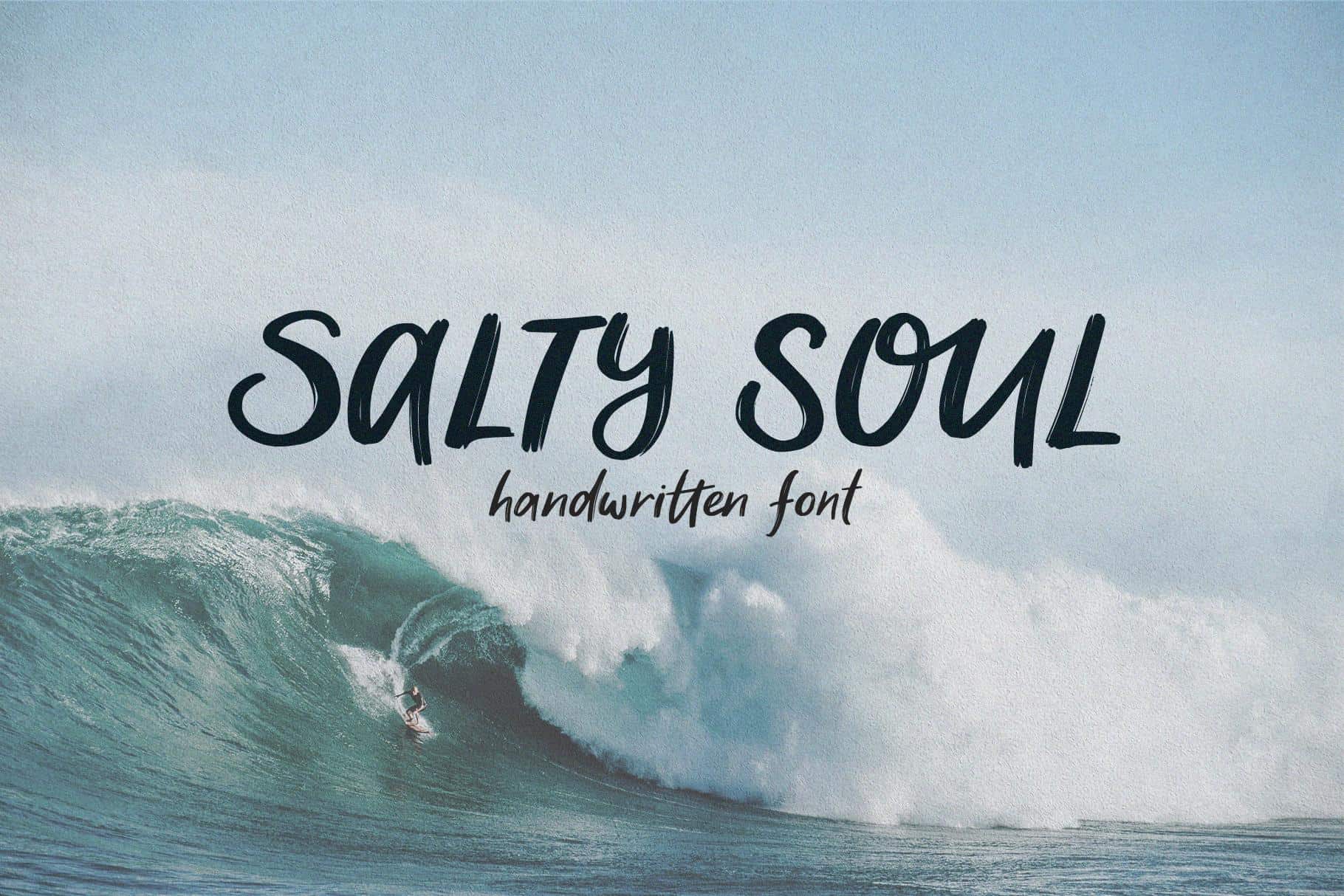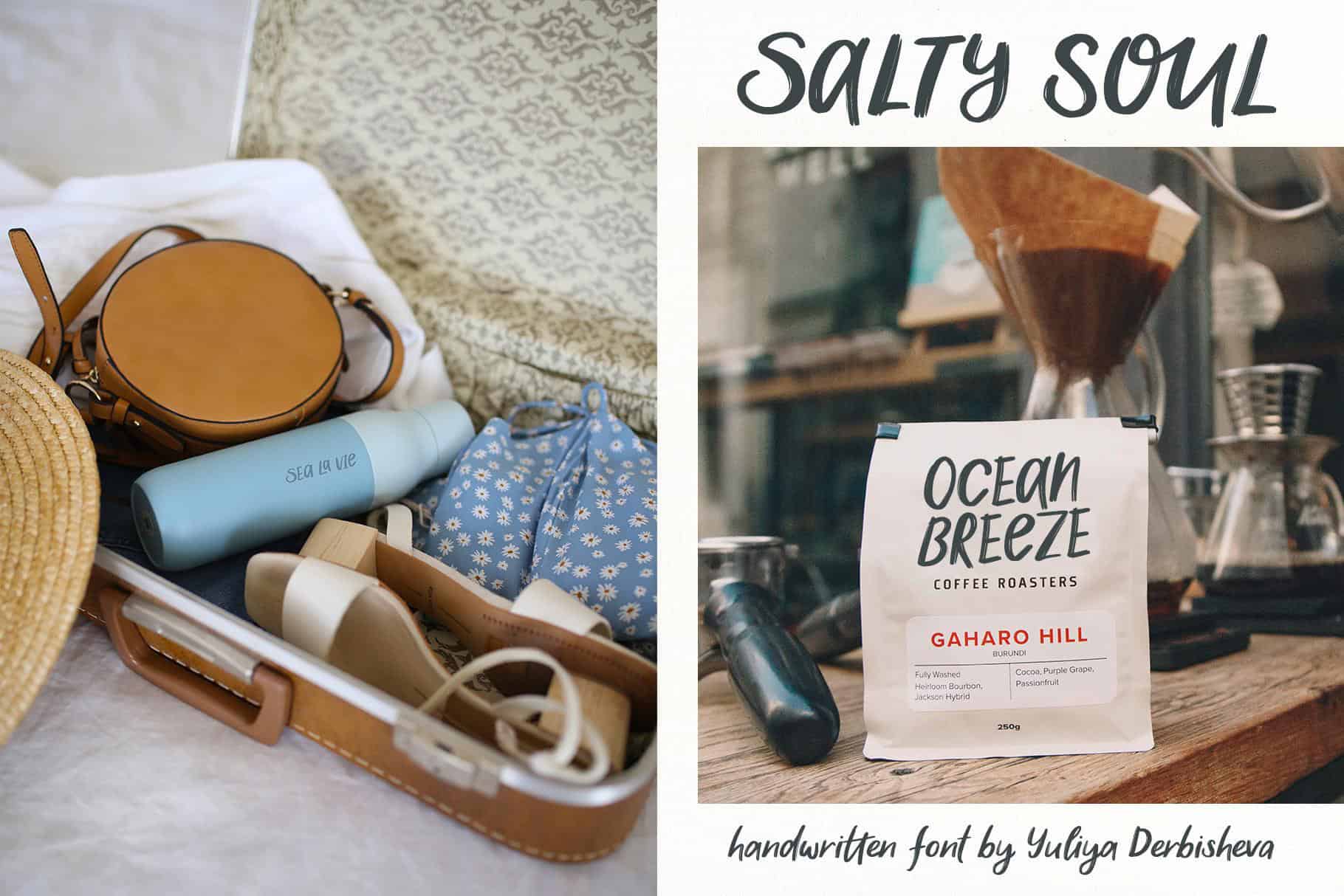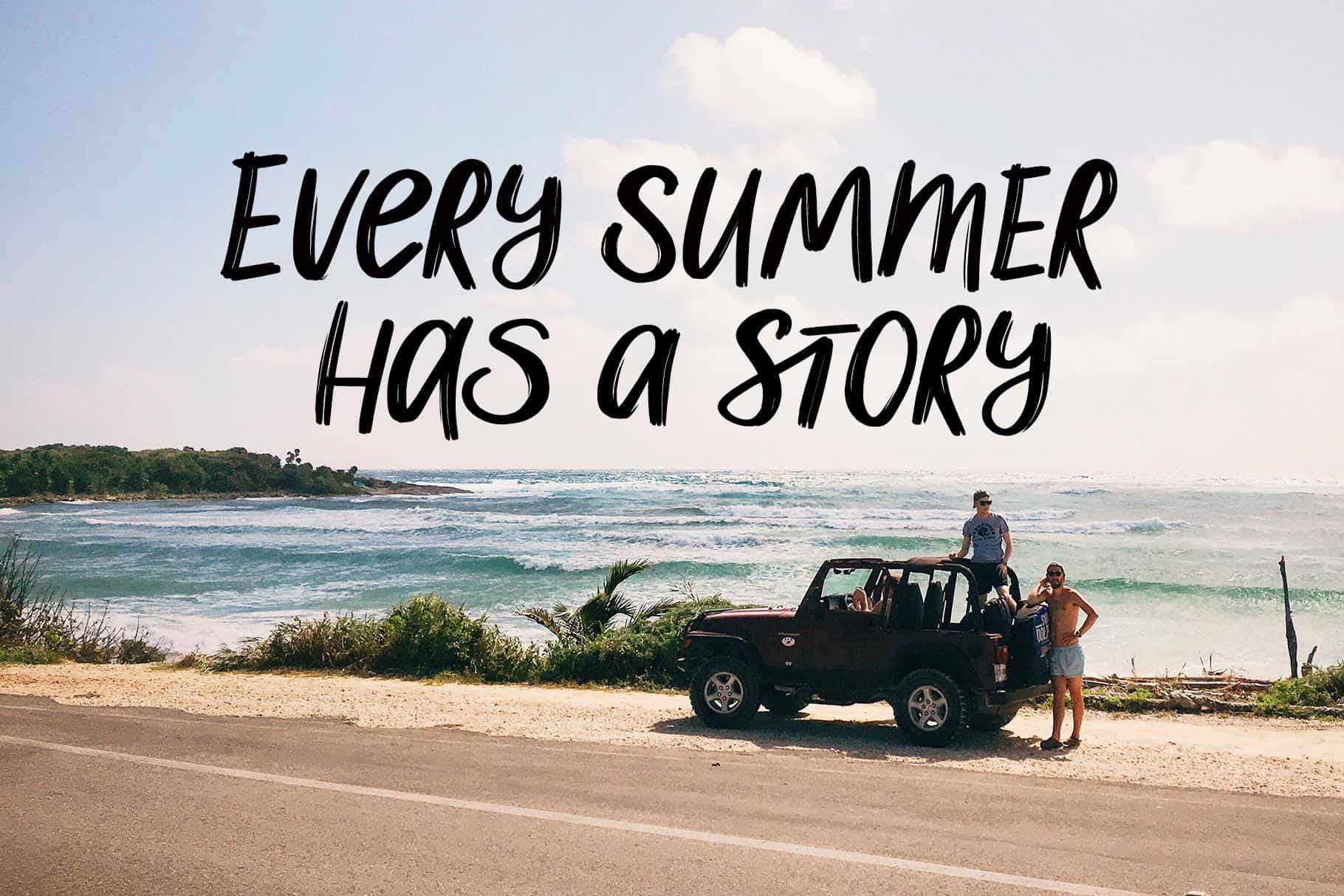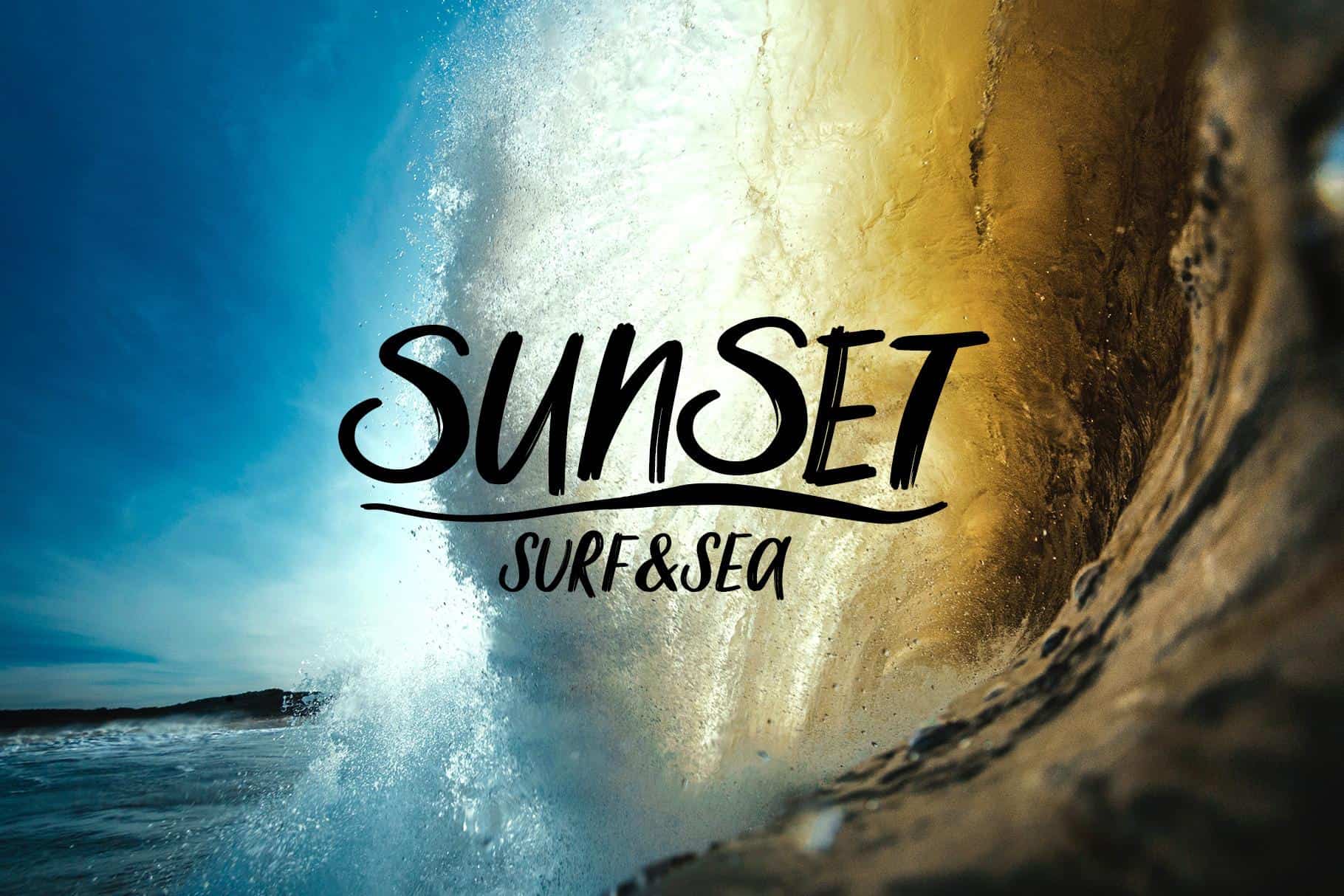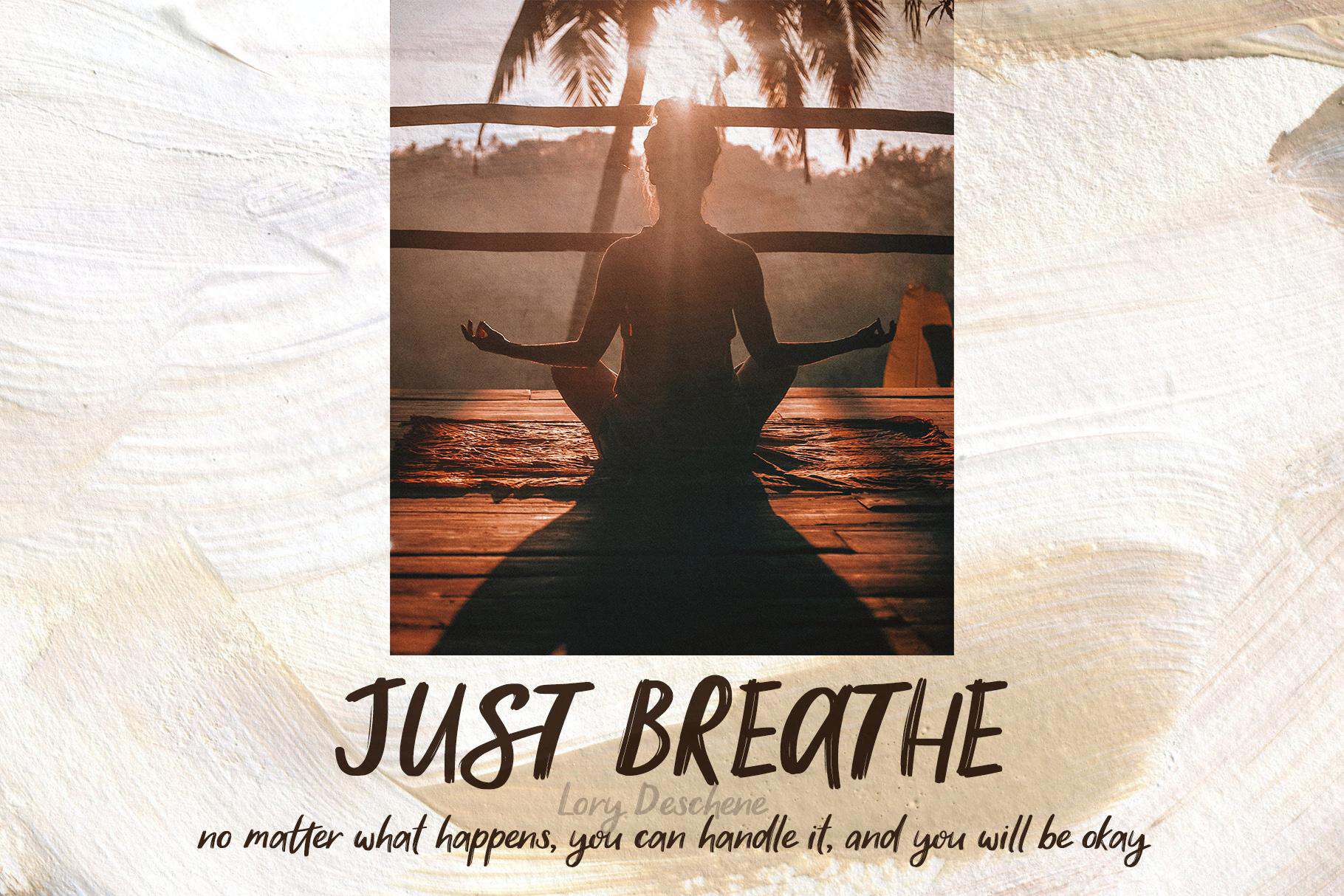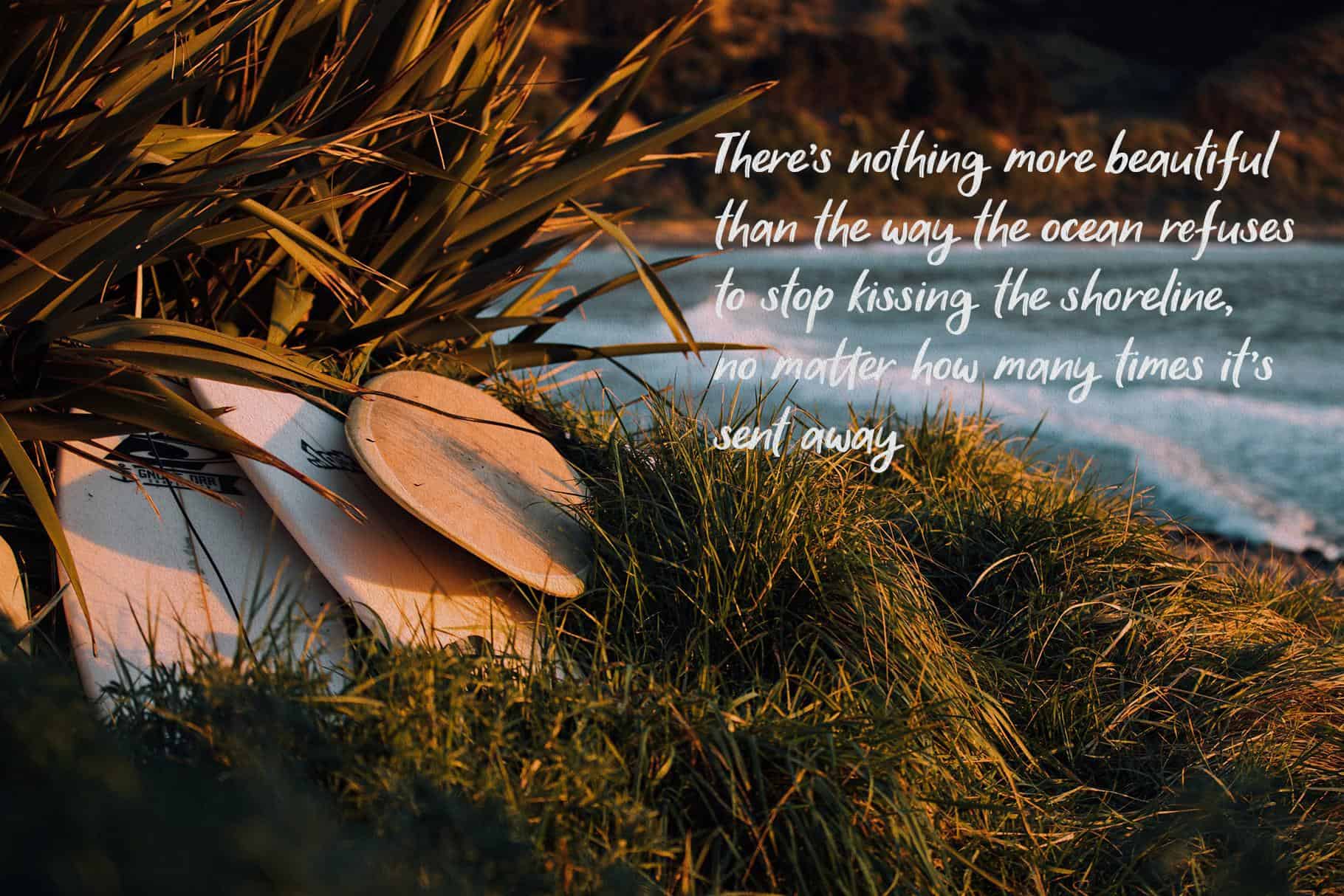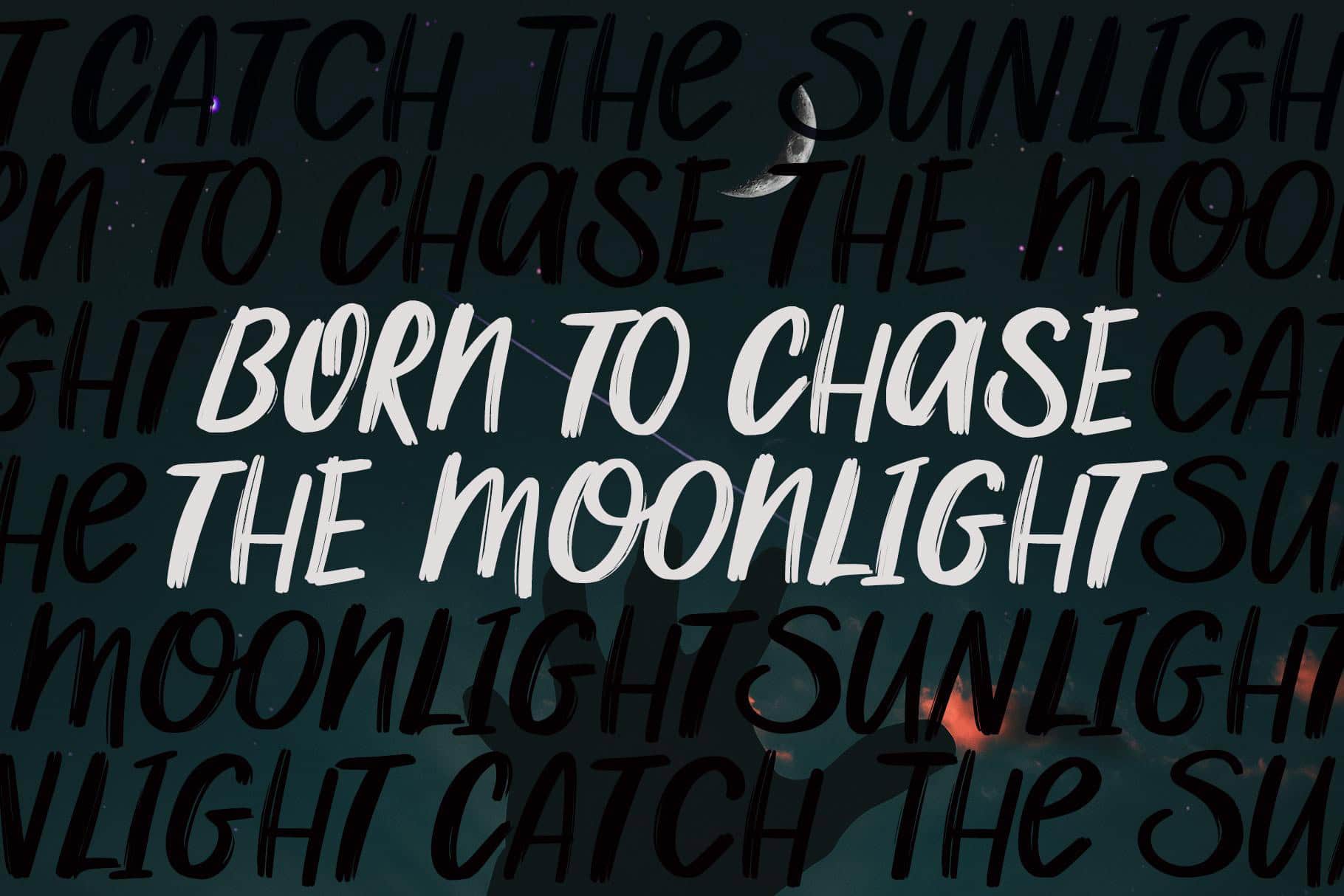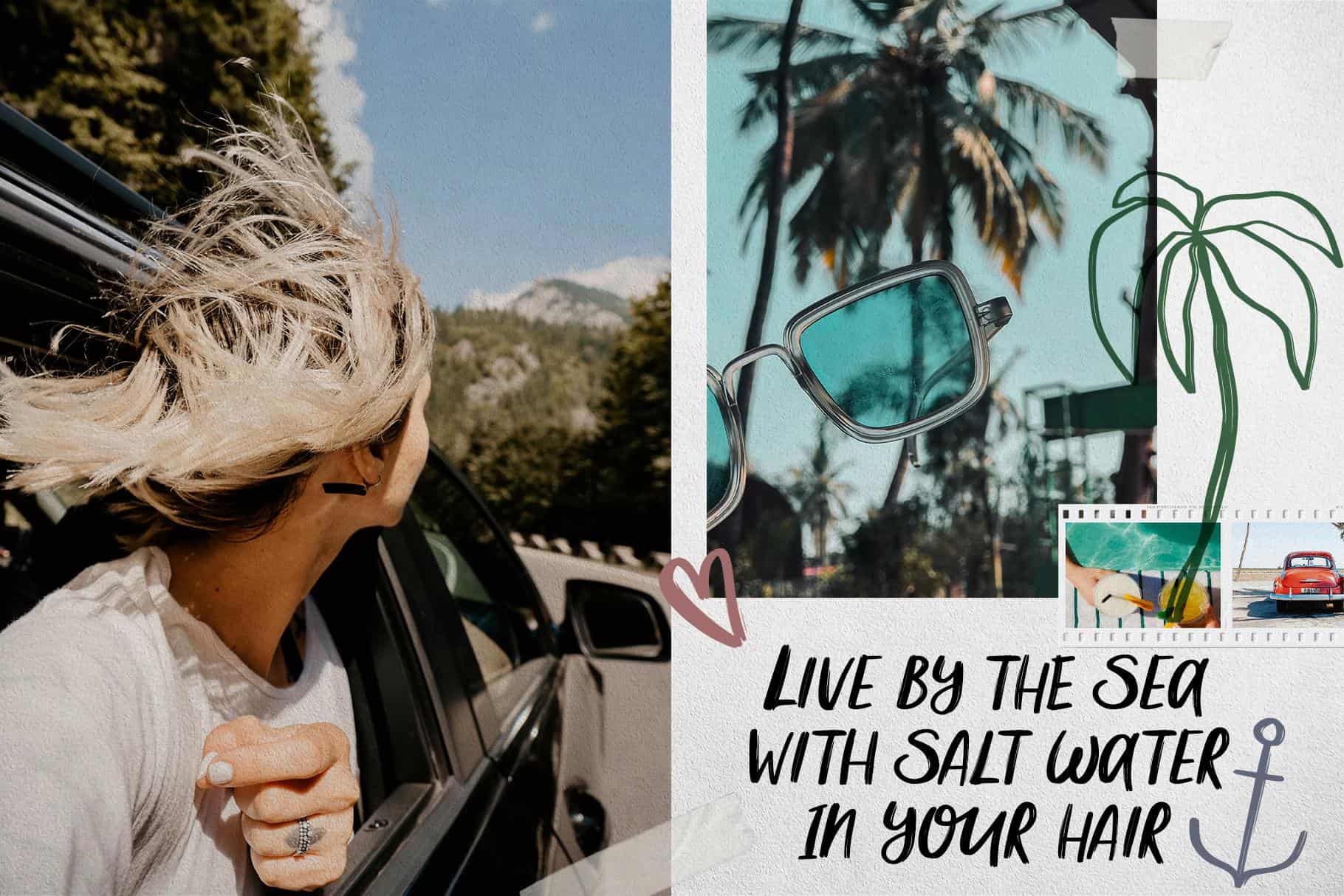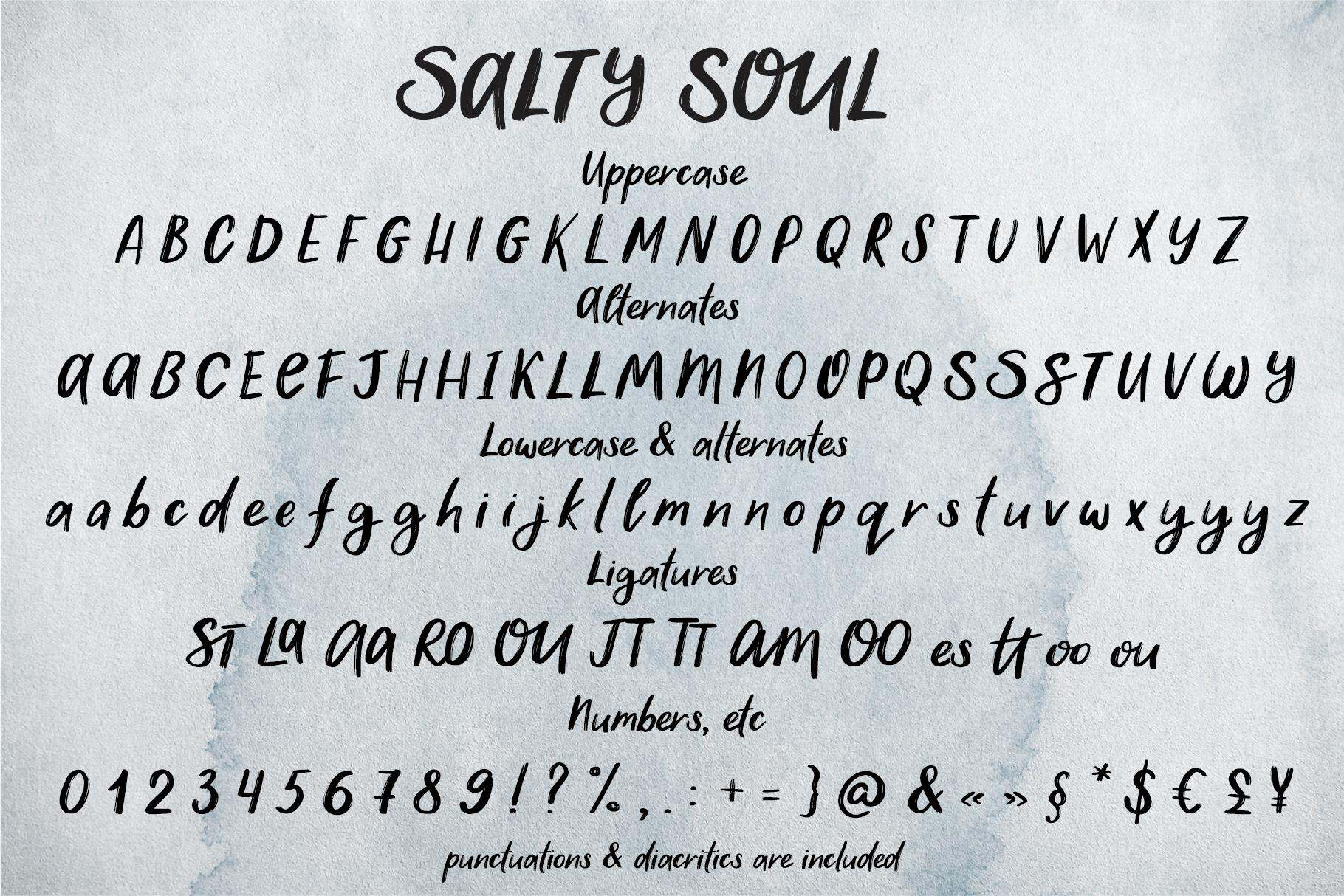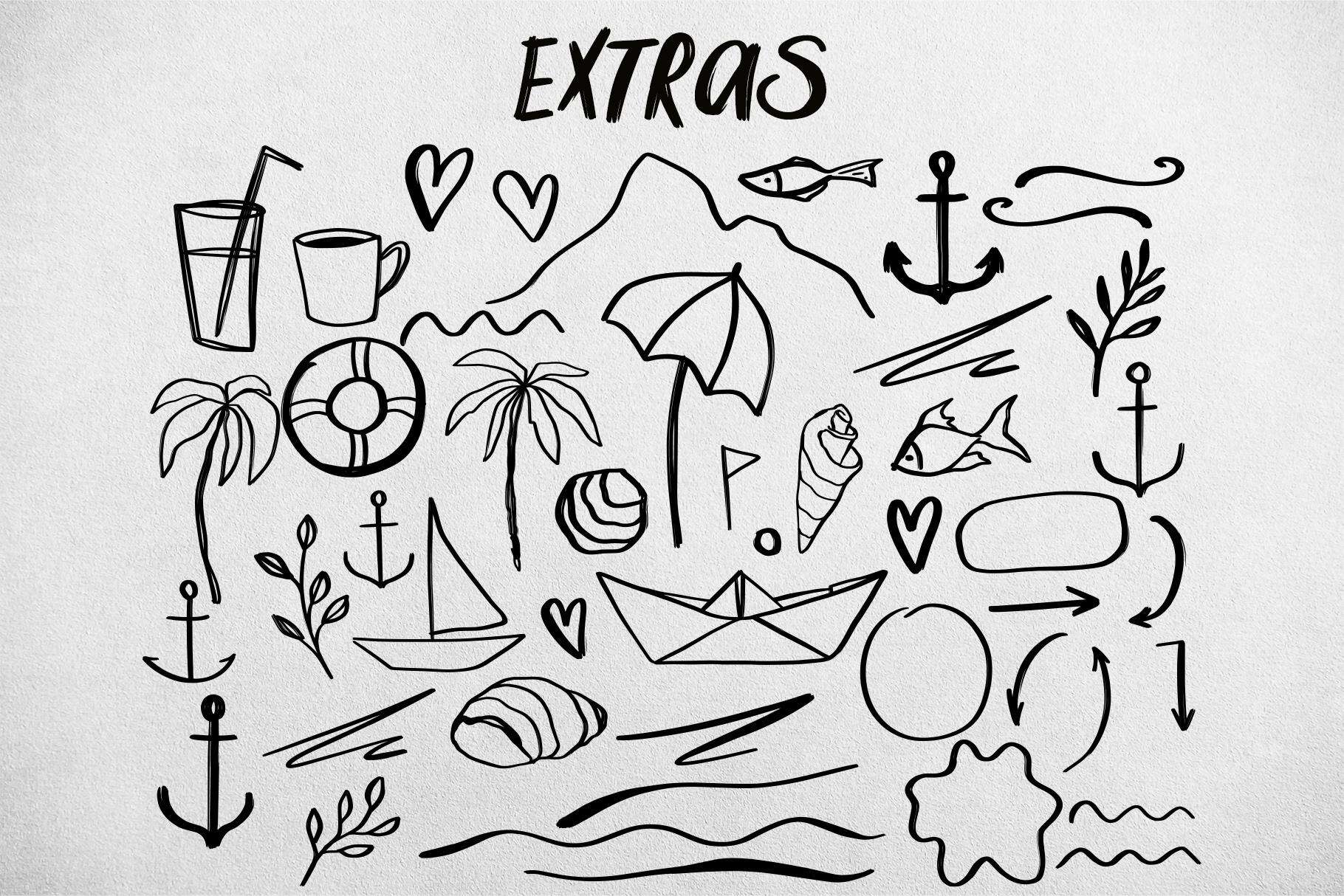
Salty Soul handwriting font + sea illustrations
Salty Soul is a handwritten font made with brush
Salty Soul is a handwritten font made with brush. Salty soul includes stylistic alternates and ligatures. The font is suitable for the design on the different themes includes logo design, packaging. More than 45 illustrations will help you in branding and creating your summer projects.
Salty Soul has extensive language support, it includes English, French, German, Italian, Spanish, Portuguese, Danish, Norwegian, Swedish, Finnish, Estonian, Turkish.